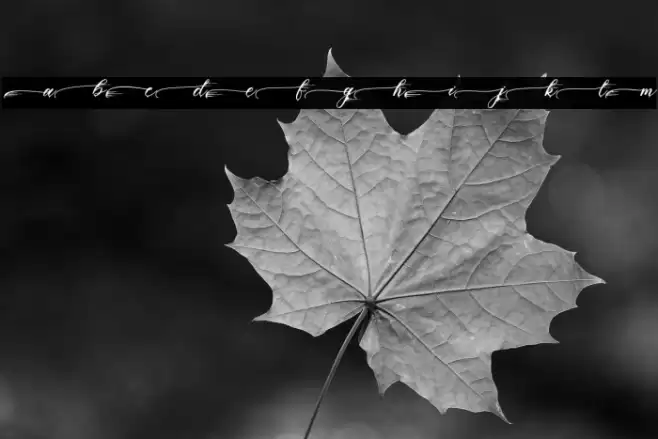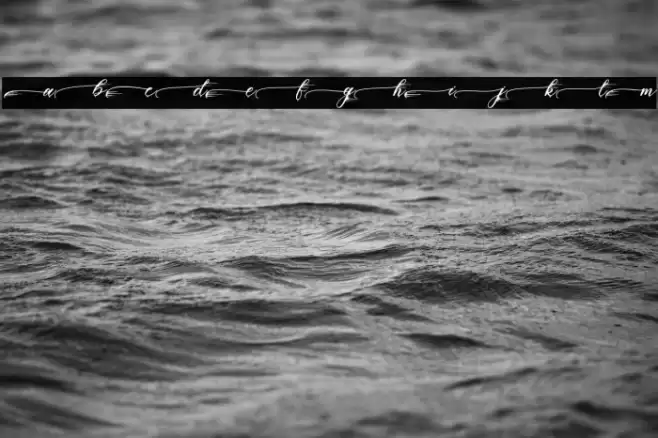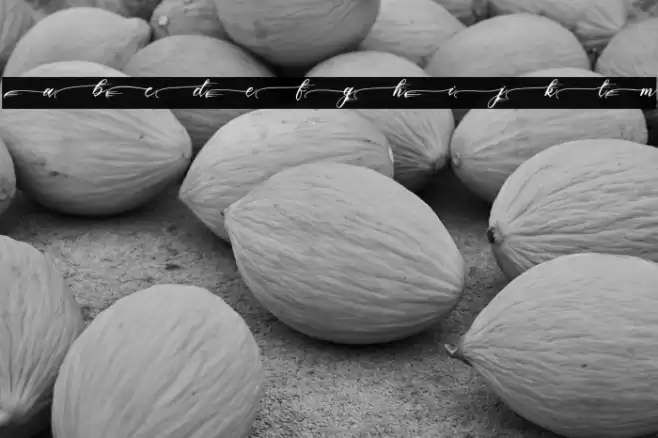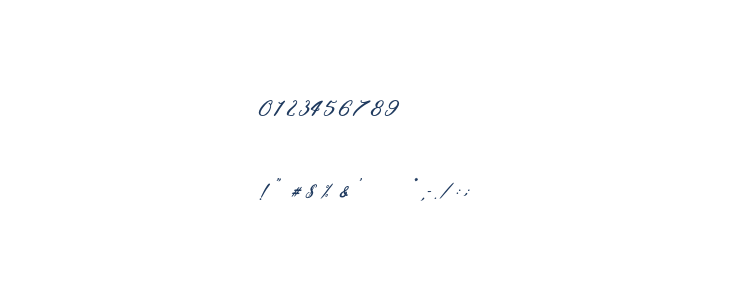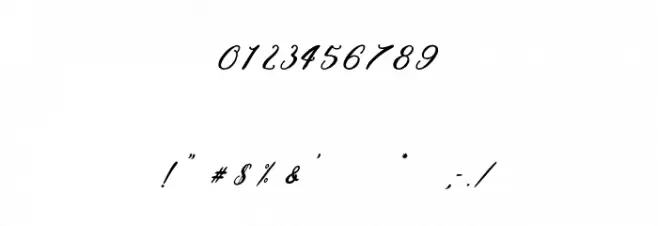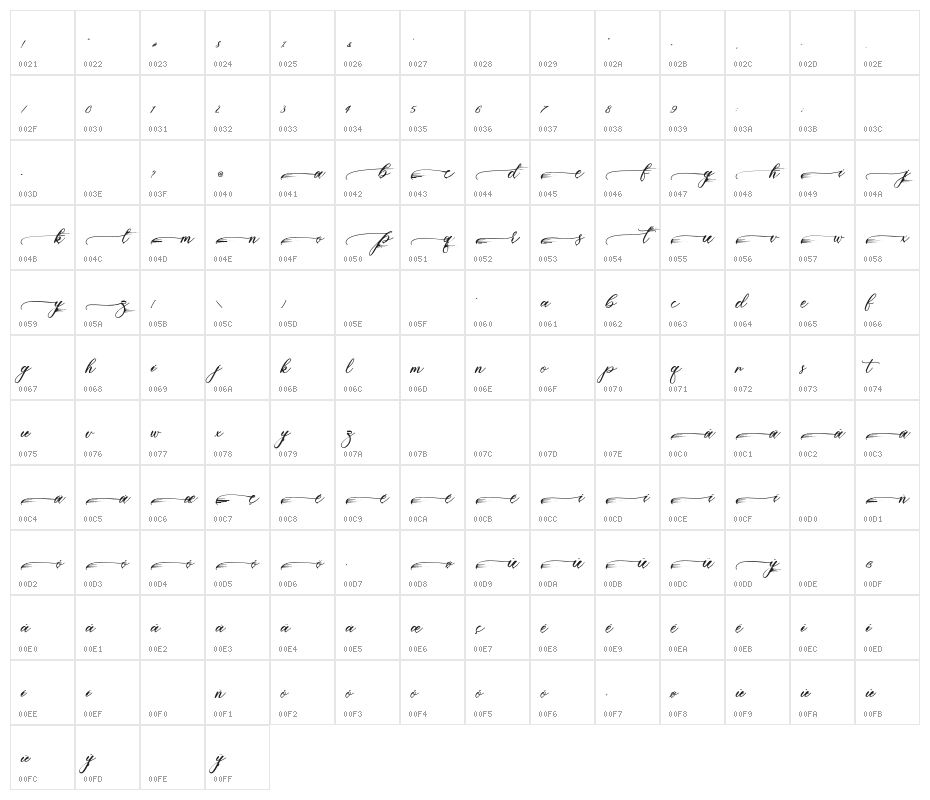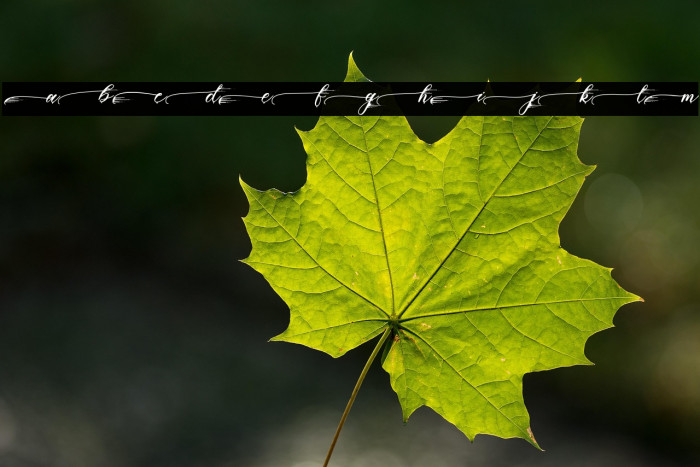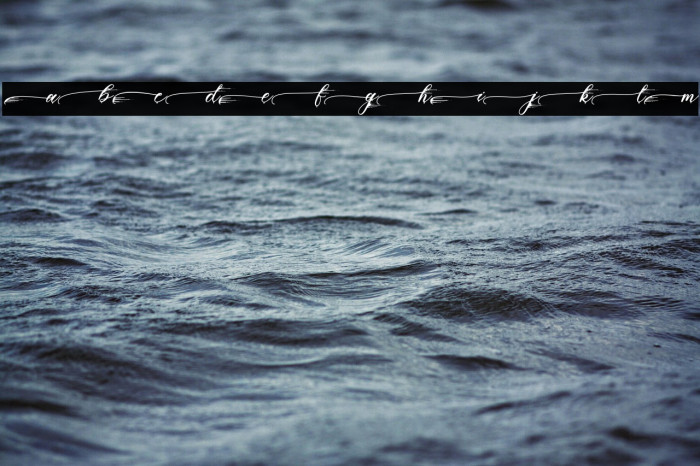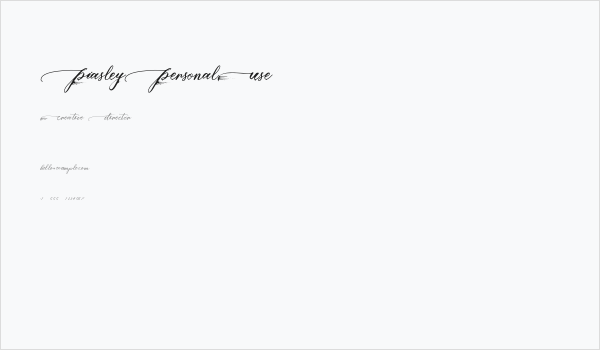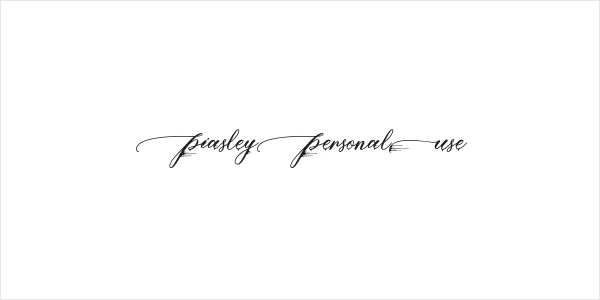
PiasleyPersonalUse Font
PiasleyPersonalUse Description
This font exudes elegance and sophistication with its flowing, cursive style. The letters are intricately designed, featuring delicate loops and swirls that give it a handwritten appearance. The uppercase letters are bold and prominent, while the lowercase letters maintain a graceful continuity. The numerals are consistent with the overall script style, adding a touch of classic charm. Special characters are thoughtfully integrated, maintaining the font's cohesive aesthetic. This font is ideal for projects that require a personal, artistic touch, such as invitations, branding, or decorative text.
An elegant, cursive script font with intricate loops and swirls from Uncategorized fonts.
- Font: PiasleyPersonalUse
- Proposed Projects: Ideal for wedding invitations, branding, greeting cards, and decorative projects.
- Use Case: Logos, Invitations, Decorative text